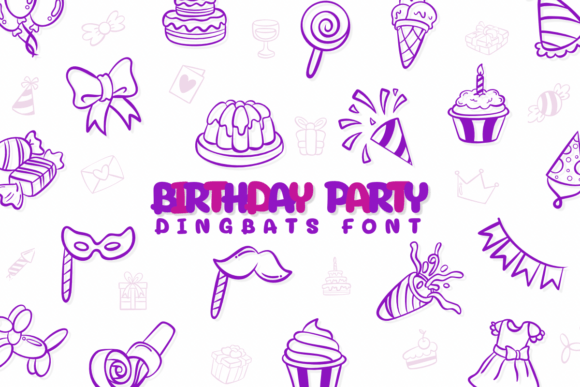
The Joy of Designing a Birthday Bash
Do you remember the rush of excitement when you started planning a surprise birthday party for a loved one? The thrill of brainstorming creative ideas, the thrill of searching for the perfect decorations, and the joy of bringing it all together? As designers, we know that a well-designed party can leave a lasting impression on our guests. And that’s exactly where the Birthday Party Font comes in – a delightful dingbats font that’s perfect for adding a festive touch to your creative projects.
With its playful and whimsical design, the Birthday Party Font is a valuable addition to any designer’s toolkit. Whether you’re working on wedding invitations, DIY crafts, or logos, this font can help you bring your ideas to life in a fun and engaging way. Its versatility makes it a must-have for designers who want to add a personal touch to their projects.
Birthday Party Font Key Features
- Unique Characteristics: This font features colorful and playful characters, including balloons, confetti, and candles, which add a celebratory touch to any design.
Birthday Party Font Review
Overall, I think the Birthday Party Font is a fun and playful choice for any celebration-themed project. ✨ The bold and colorful strokes give it a lively feel that’s perfect for children’s parties or other festive events. The font’s irregular shapes and varying line widths add to its whimsical charm.
- The font’s bold weights are particularly effective at grabbing attention, making it a great choice for titles and headings.
- The color options are also quite extensive, allowing you to match the font to your specific party theme.
However, there are a few limitations to consider. ⚠️ The font’s irregular shapes can sometimes make it difficult to read, especially in smaller sizes or when used for body text. Additionally, the font’s playful nature can be overwhelming in large quantities, so be careful not to overdo it.
Overall, I think the Birthday Party Font is a great choice for projects where you want to add a touch of whimsy and fun. Just be mindful of its limitations, and use it sparingly to avoid overwhelming your audience.
The Birthday Party Font is perfect for creating eye-catching invitations, decorations, and party materials. Use it to add a playful touch to your designs. Some common use cases include:
- Party invitations and announcements
- Decorations, such as banners and signs
- Party favors and gifts
- Themed party materials, such as cake toppers and cupcake wrappers